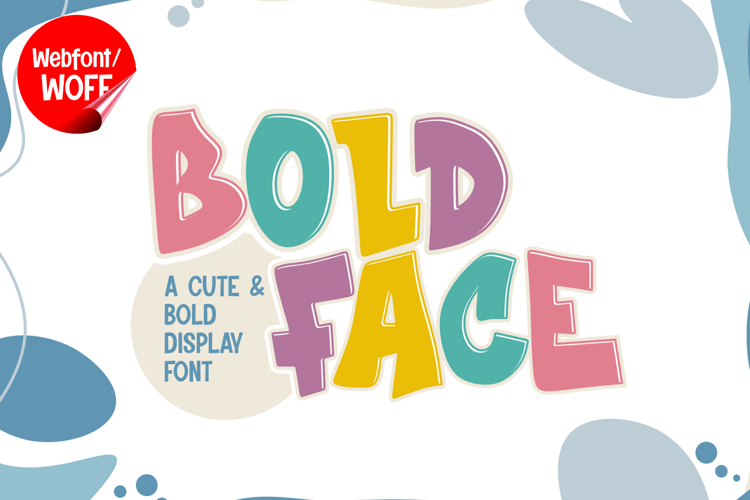
Bold Face | Cute Display Webfont for Playful Websites
Bold Face is a cute display webfont designed to bring a playful, friendly, and eye-catching style into modern website design. With its rounded shapes and bold character forms, this font creates a cheerful visual tone that feels approachable and engaging. It is a perfect choice for projects that aim to communicate warmth, creativity, and a fun brand personality.
Bold Face features a complete set of uppercase characters designed with thick, rounded shapes that enhance readability while keeping a playful appearance. The bold structure makes it ideal for headlines, banners, hero sections, and featured content where strong visual presence is needed. Its cute and friendly design helps attract attention and creates a welcoming feel.
In addition to letters, the font includes numbers and punctuation, allowing flexible usage across various parts of a website. It works well for promotional text, product highlights, pricing displays, and call-to-action sections. Each character maintains a consistent style, ensuring a cohesive and unified design throughout the layout.
With multilingual support, Bold Face includes a wide range of accented characters, making it suitable for international websites and global audiences. This allows content to be displayed clearly across different languages while preserving the playful and rounded aesthetic.
The cute display style of Bold Face makes it especially suitable for children’s websites, creative brands, lifestyle blogs, product packaging pages, and promotional campaigns. Its soft and bold shapes add personality and charm, helping websites stand out in a friendly and engaging way. It is also a strong option for brands that want to appear approachable and modern.
Despite its playful and decorative look, Bold Face is designed with readability in mind. The spacing and proportions are carefully balanced to ensure clarity, particularly in display sizes. This makes it effective for impactful headings and short content elements where both style and usability are important.
Bold Face is a webfont that combines cute design with bold structure and modern digital functionality. Its rounded forms, strong presence, and cheerful character create a distinctive typographic style that enhances website design. For projects that require a fun, friendly, and visually appealing font, Bold Face offers a reliable and engaging solution.